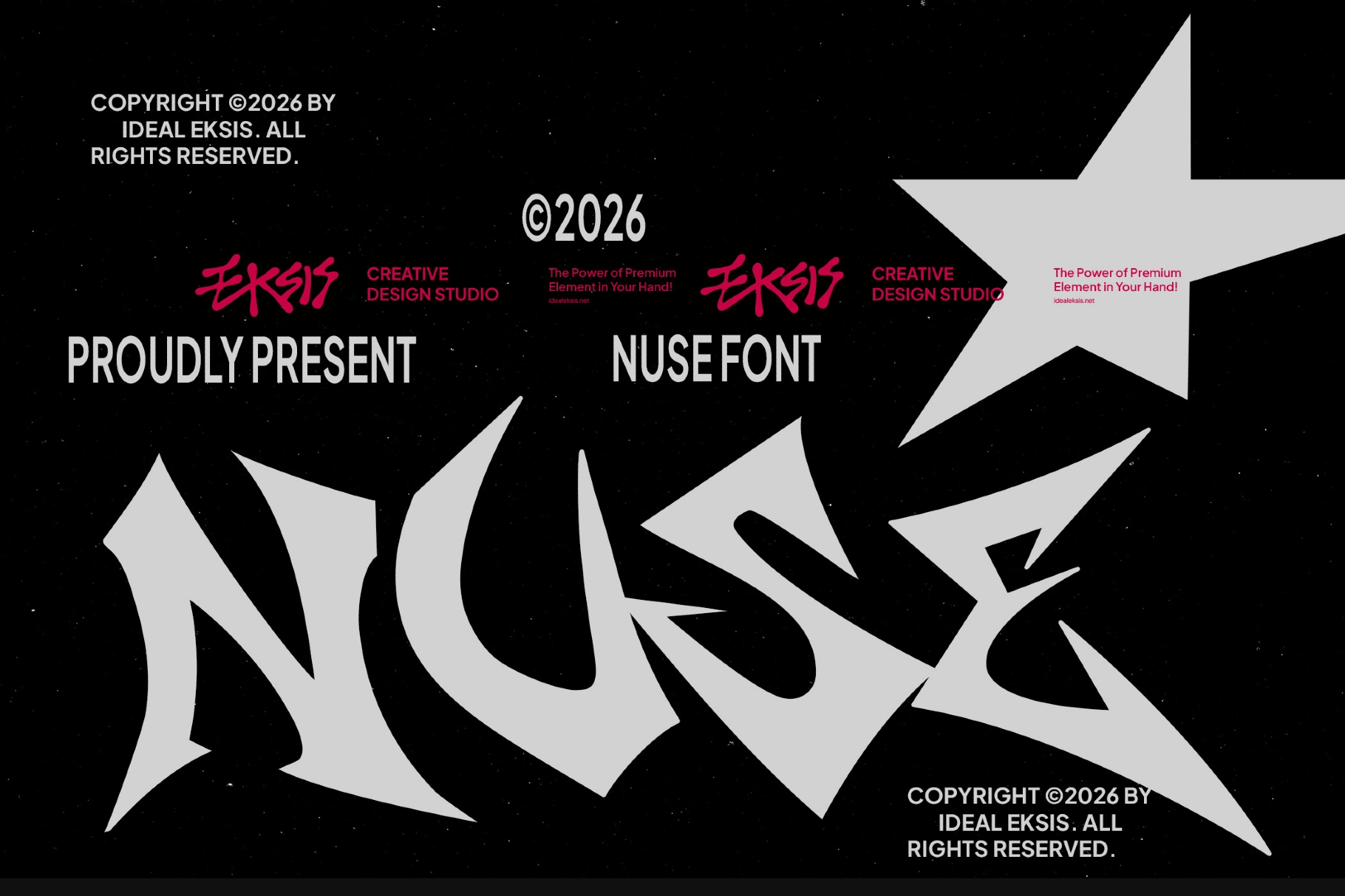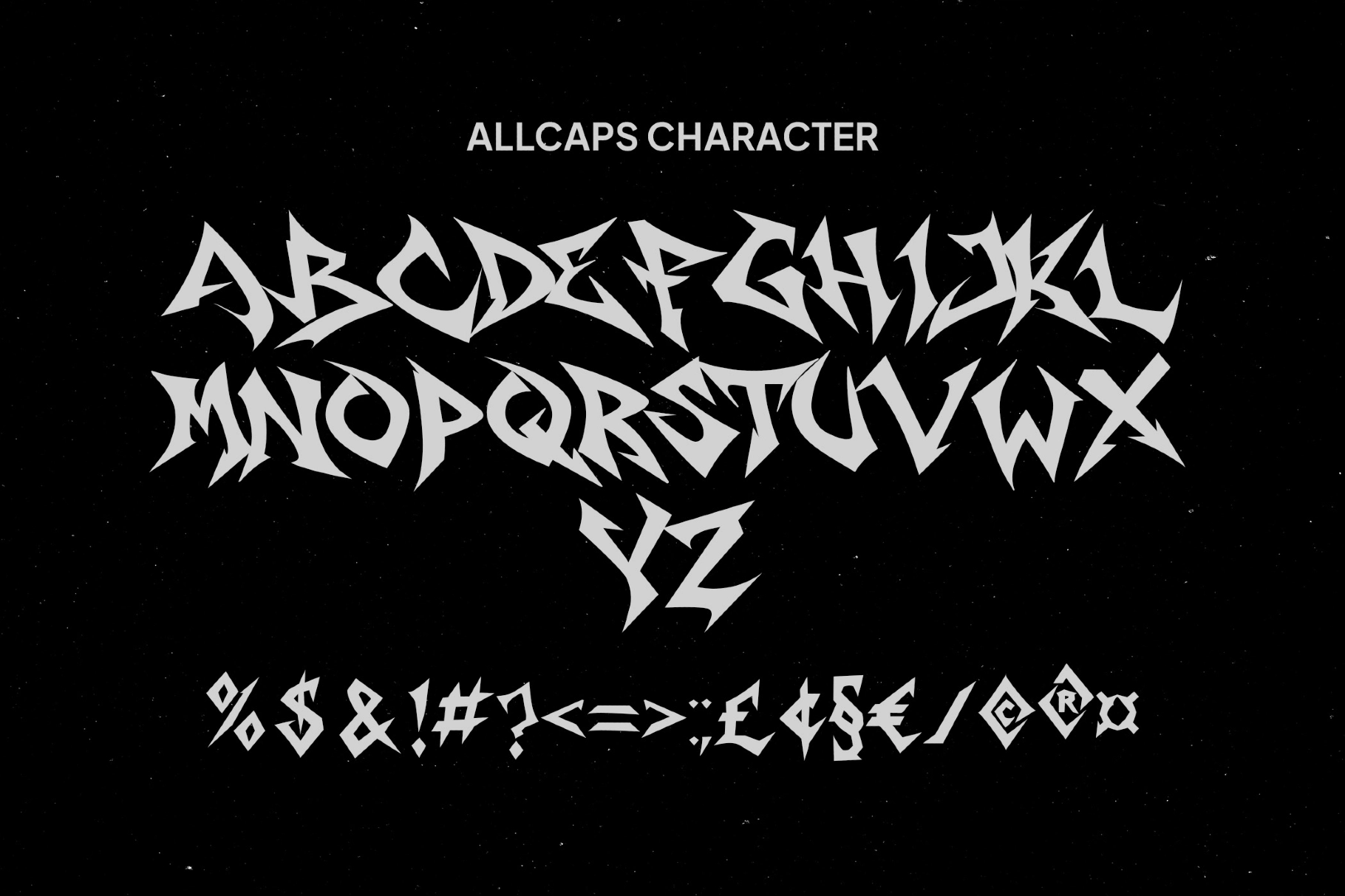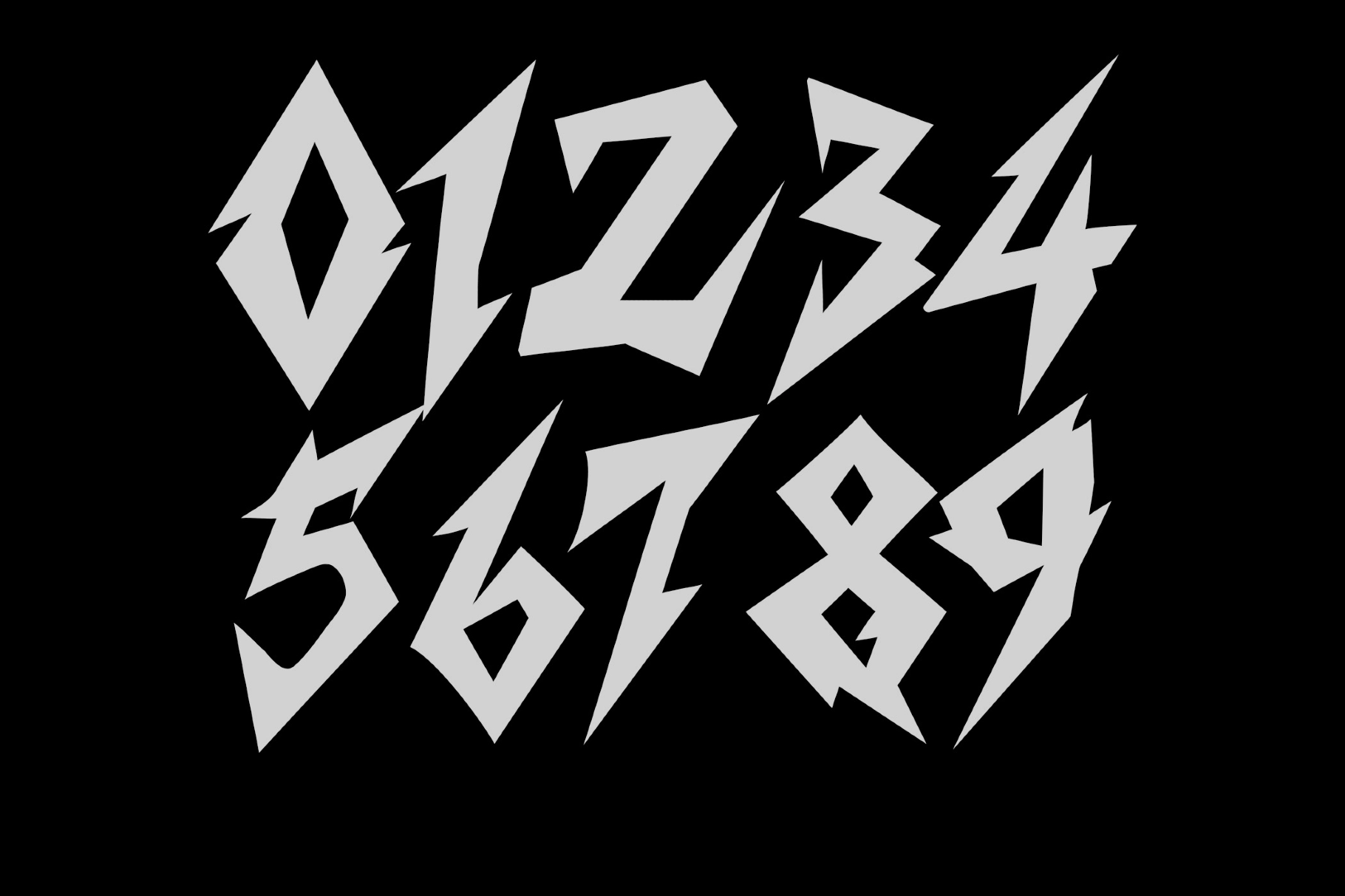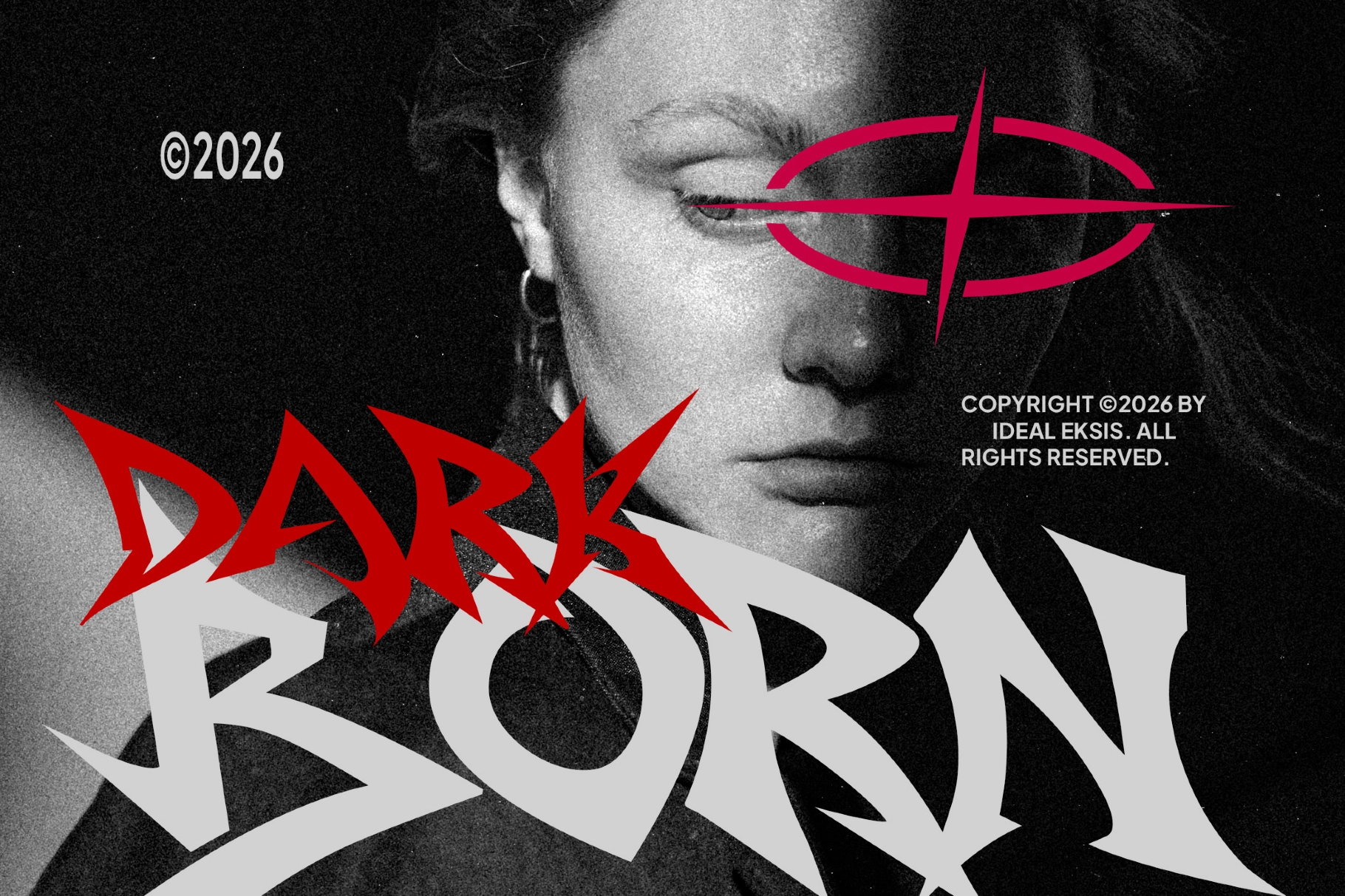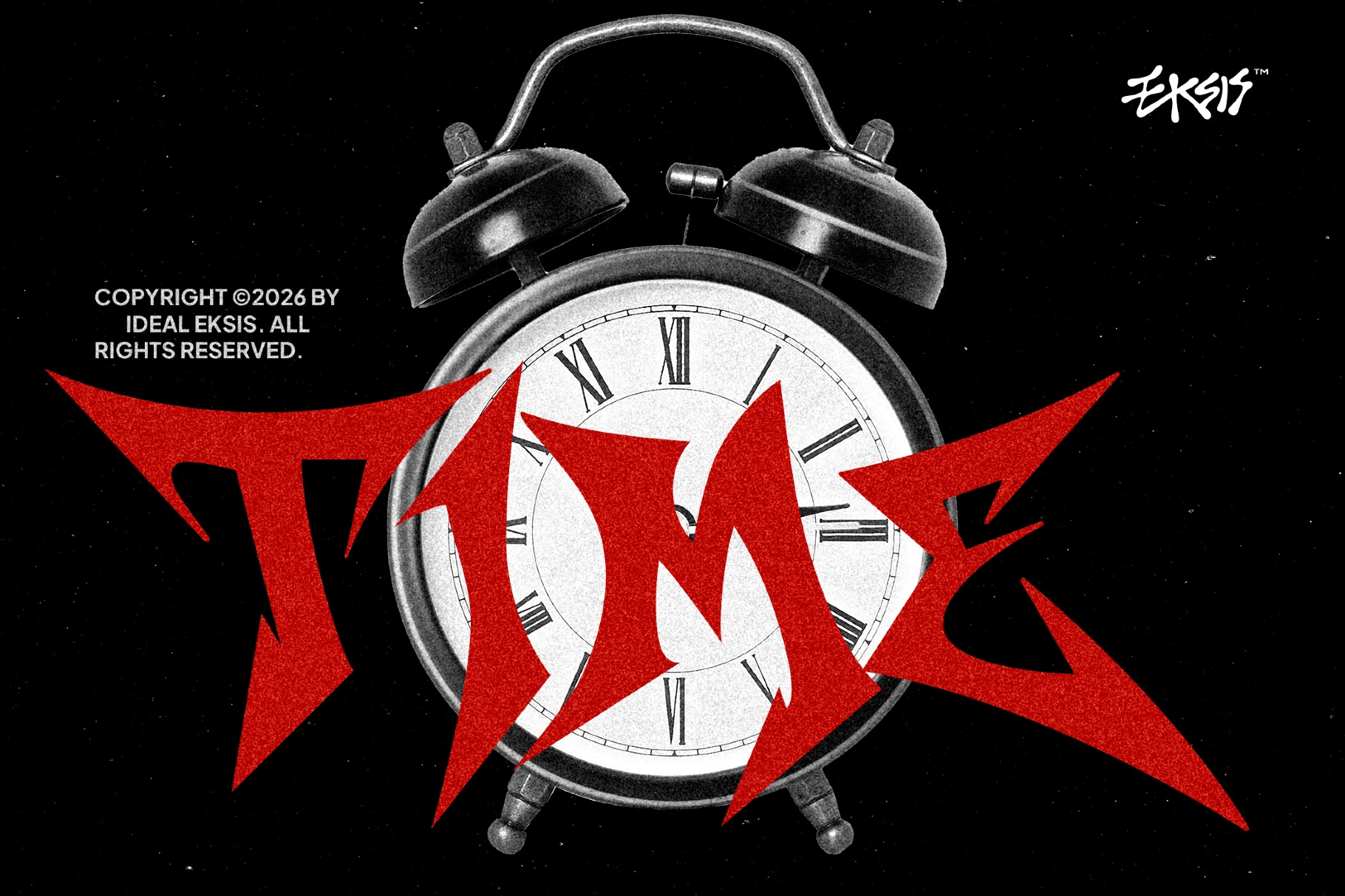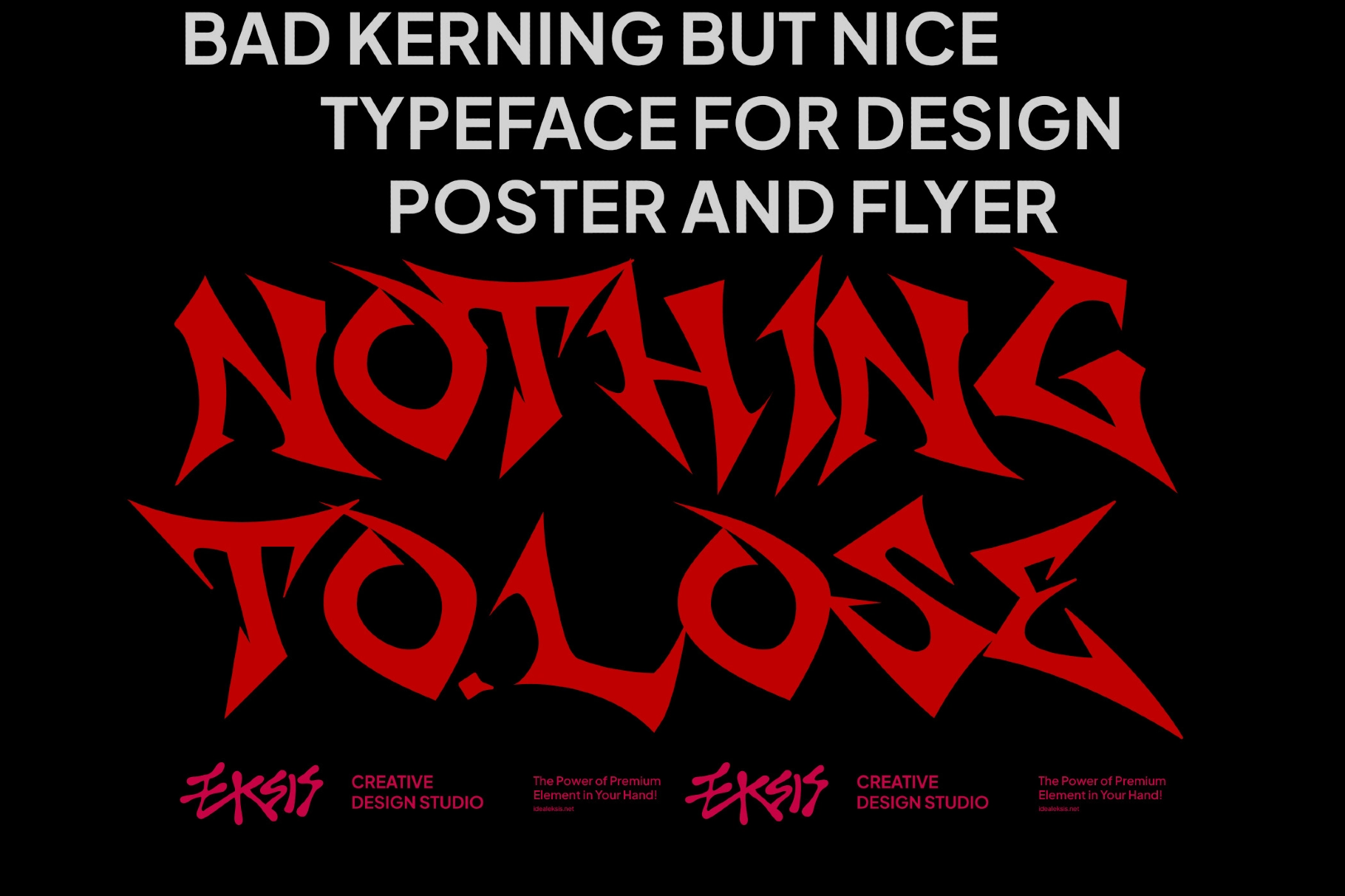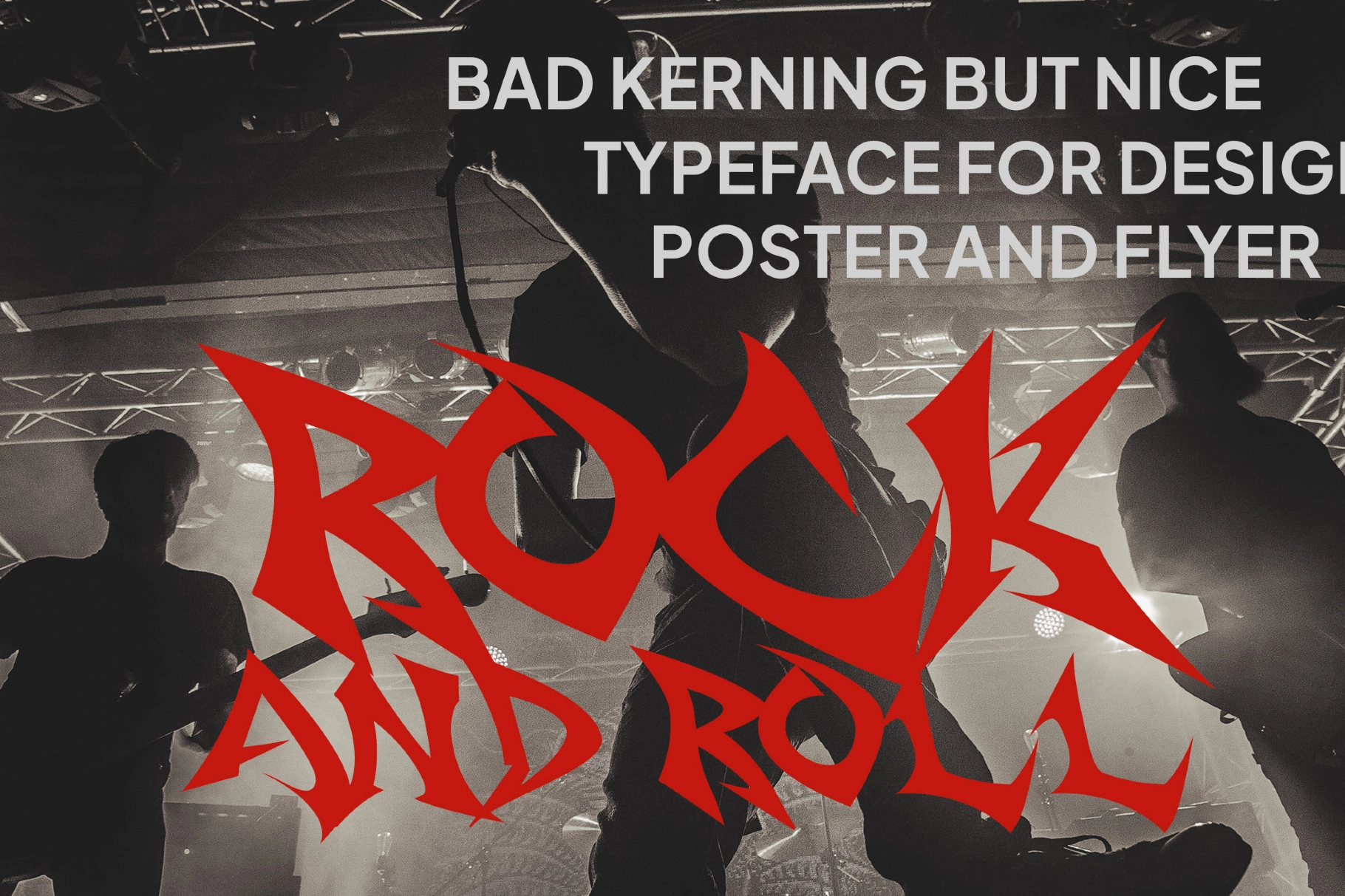
Nuse - Sharp Display Font
Nuse
A jagged sharp display font with blade-like cuts, aggressive angles, and a heavy all-caps build. The letterforms carry a raw graffiti edge with gothic tension, making the type loud, dark, and intentionally unruly.
Nuse fits poster design, gig flyers, metal band logos, underground apparel, skate graphics, tattoo studio branding, album covers, streetwear drops, zine layouts, game titles, nightlife promos, horror visuals, and experimental editorial work. Its pointed structure gives headlines a hostile little grin, which is useful when polite typography has left the chat.
- All-caps characters
- Numbers & punctuation